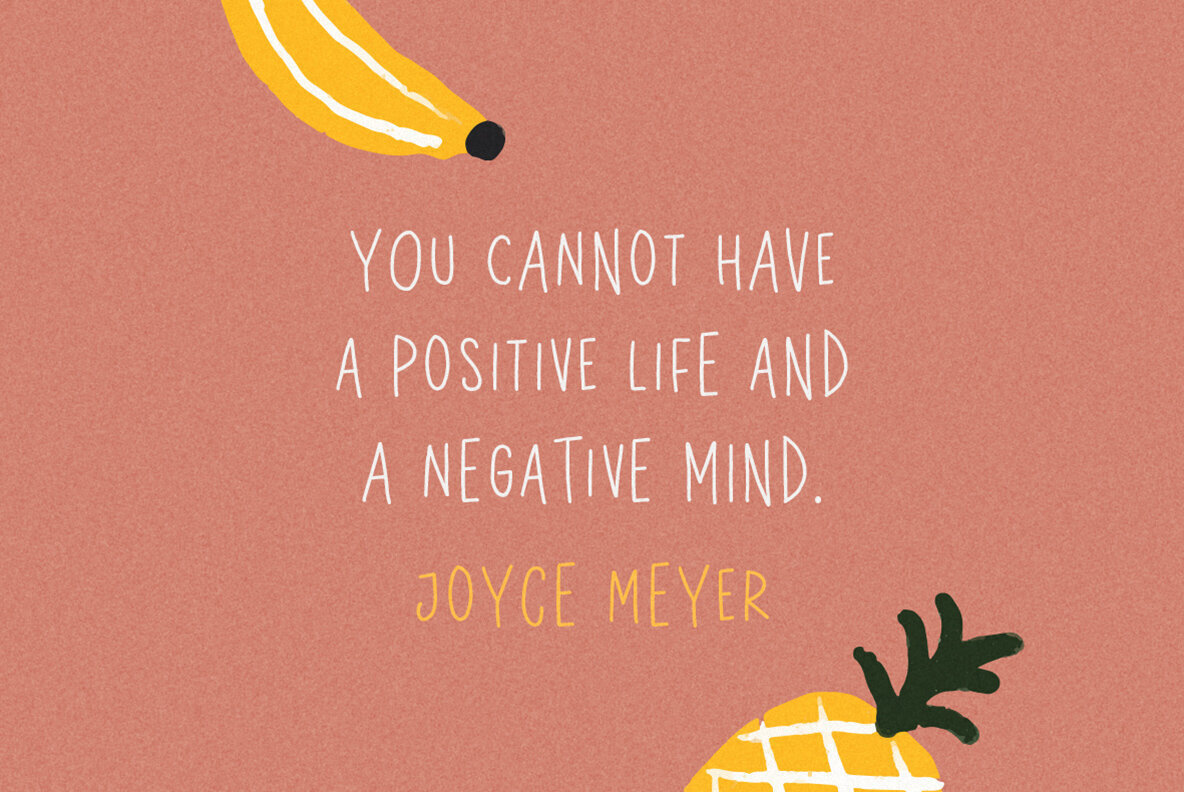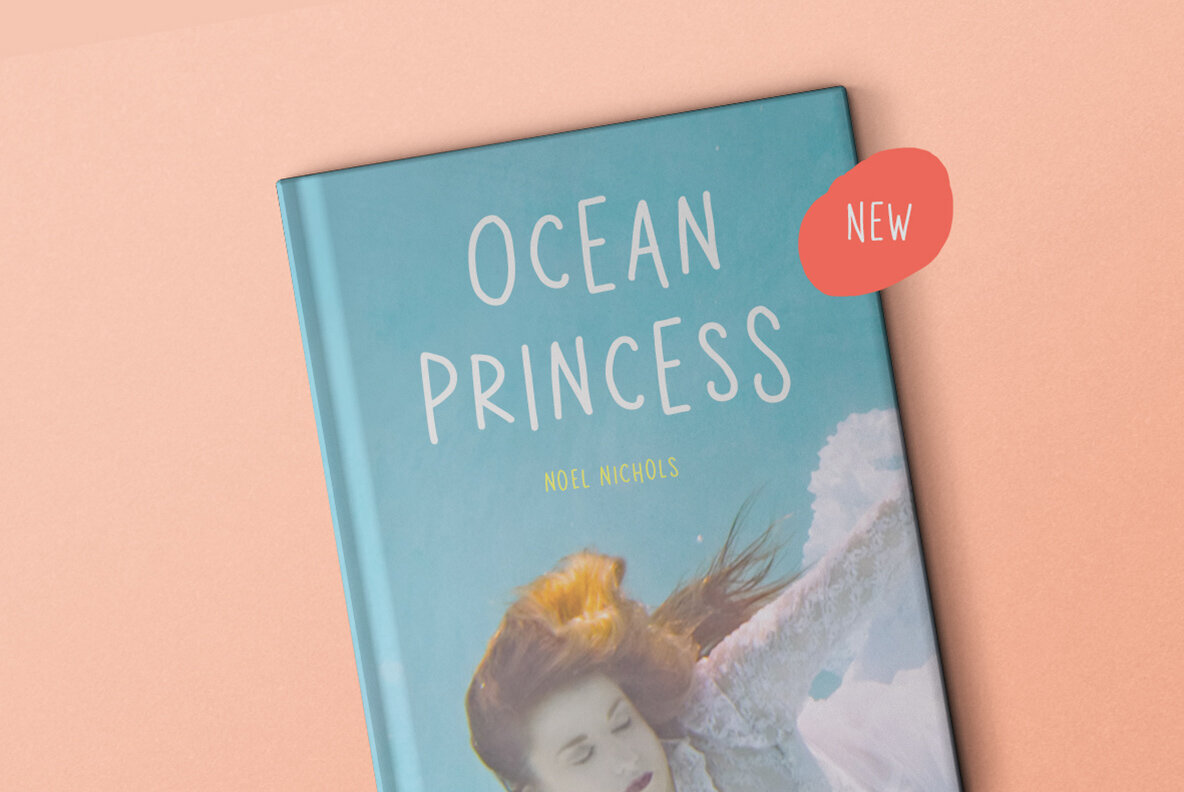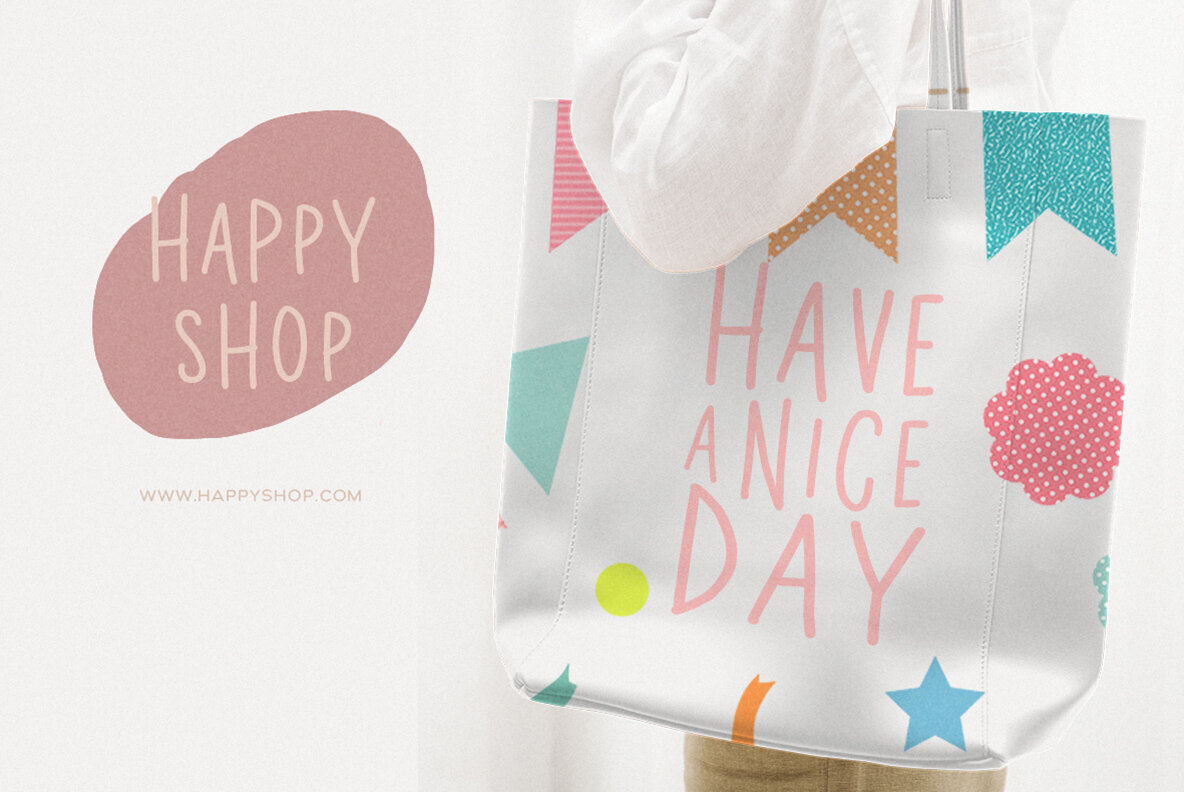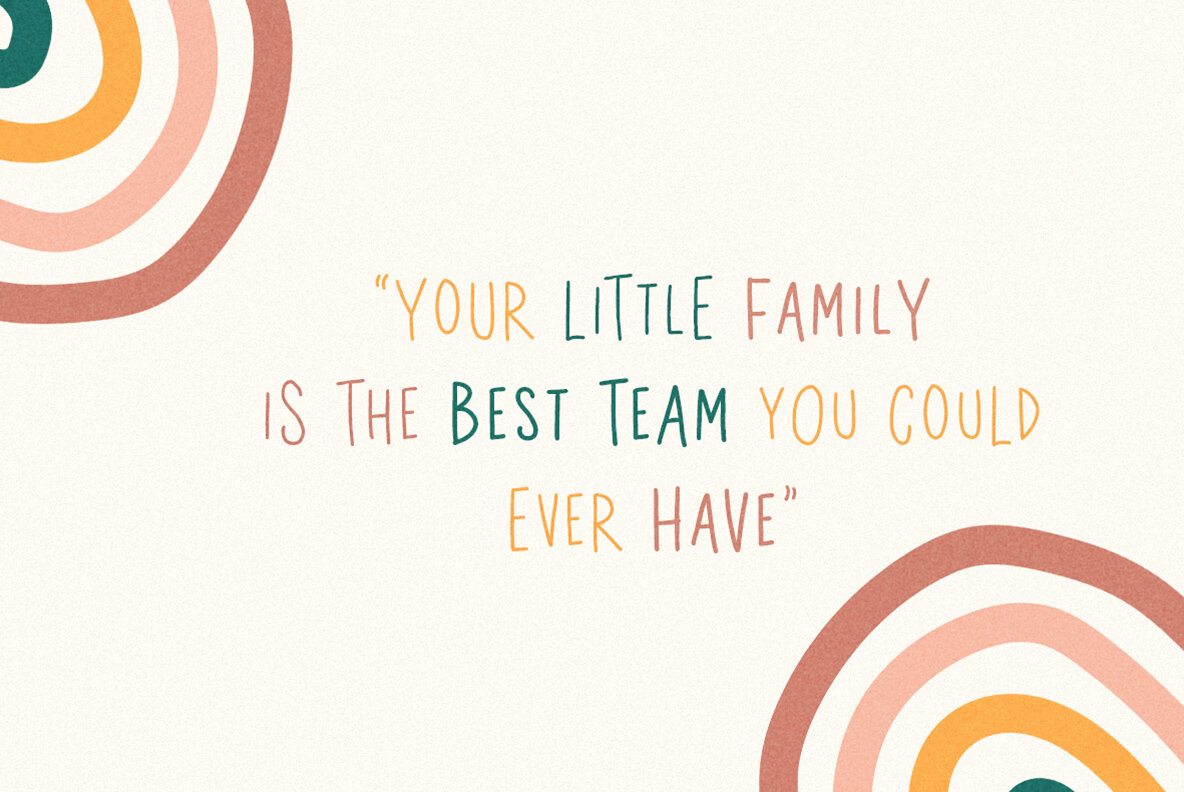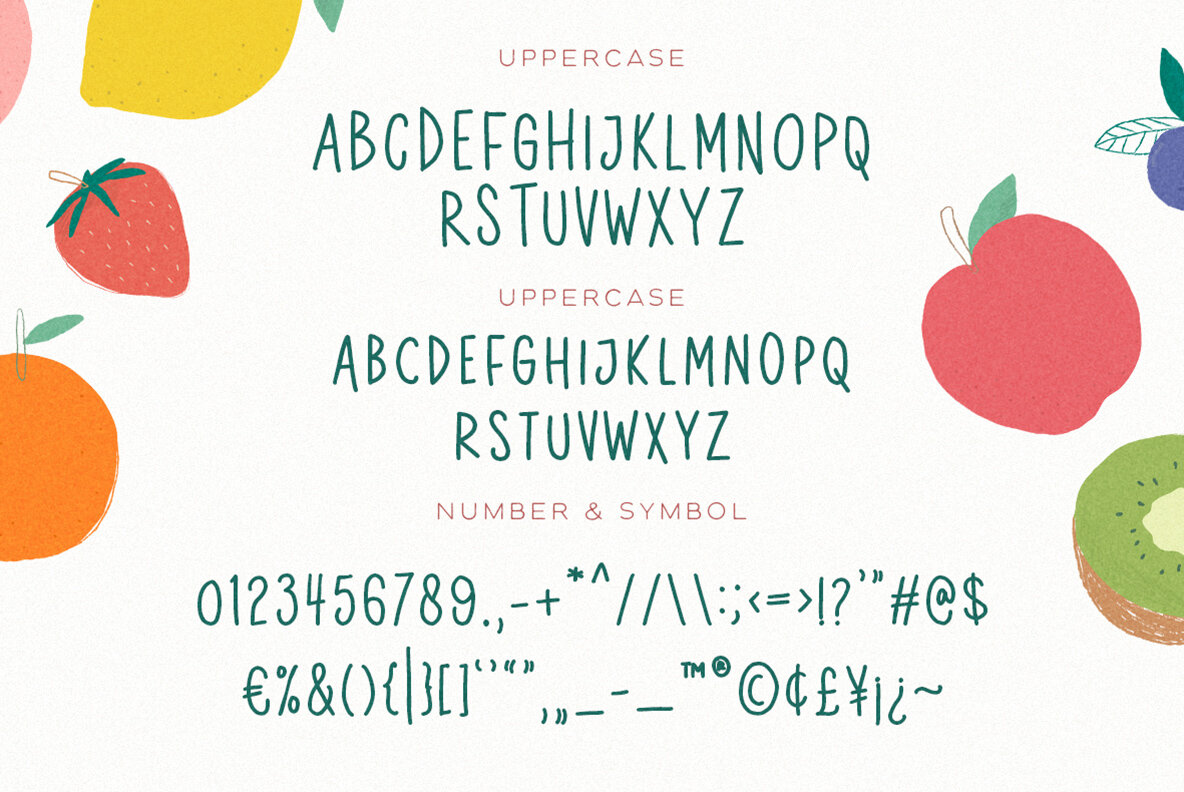
Little Apple is a sweet and fun font. It's perfect for anything that needs an elegant touch, from clothing designs to branding your personal fashion brand!
Little apples supports multi-language usage so that anyone can enjoy its creative style, no matter what their preference may be in terms of languages they speak.
An awesome font that can be used for all sorts of creations, Little Apple is a great solution for all graphic designers.